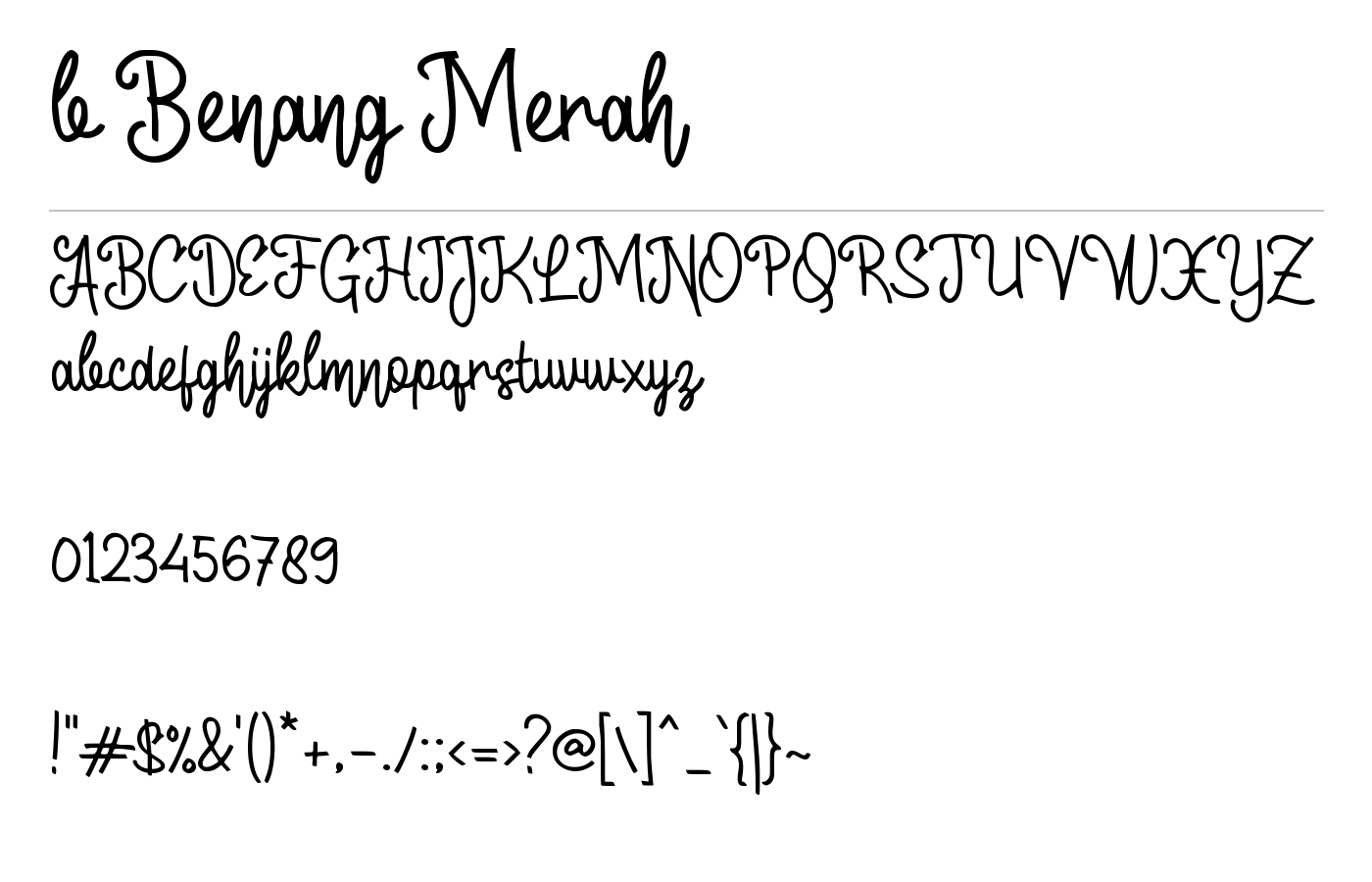
Benang Merah is a playful, handwritten script font that combines a casual yet elegant feel with its smooth, flowing strokes and distinctive loops. Its tall x-height and balanced letterforms make it ideal for creative and personal designs, adding a friendly and approachable touch to logos, invitations, and branding projects. This font works well where a unique, handcrafted style is desired, especially in headings and decorative text.
b Benang Merah Font
About b Benang Merah Font